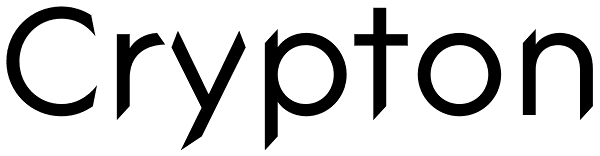
Crypton
Crypton is a modern geometric design by Alex Kaczun. It's an alternate style variation based on his popular Contax Pro family of fonts. The look is clean, smart and sophisticated—the chiseled end strokes reflect the rage of the 1980s; lettering that...